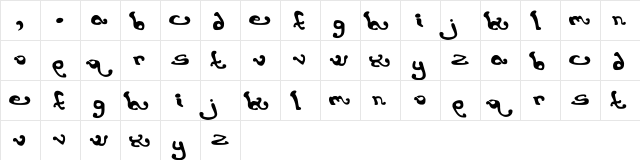
earthling. normal
Design Context for earthling. Typeface
earthling. is a composed and adaptable typeface that performs quietly and consistently across a wide range of design contexts.